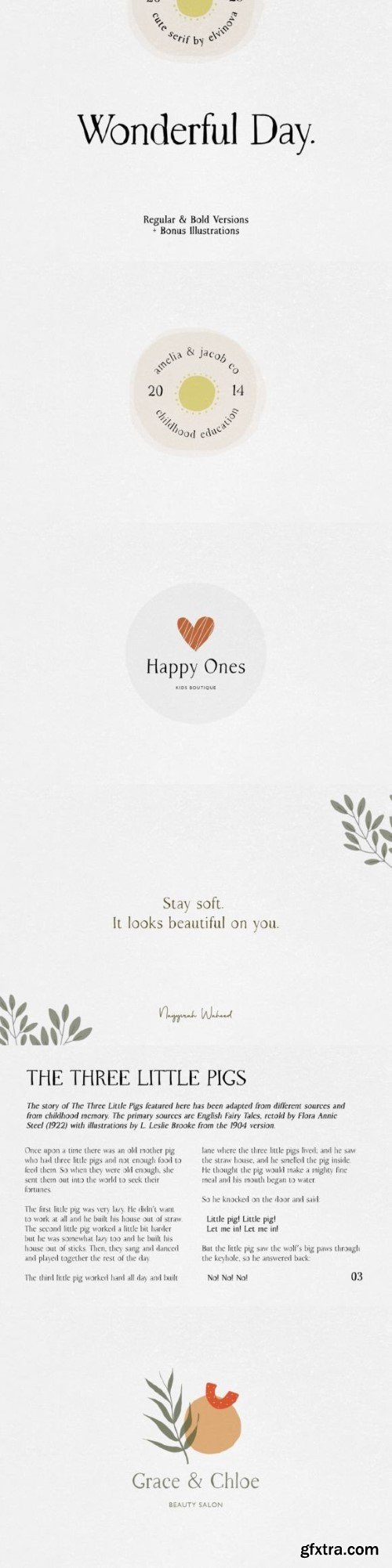
美妙的一天字体
Wonderful Day is a sweet and friendly serif font. Its natural and unique style makes it incredibly fitting to a large pool of designs. The only limit is your imagination!